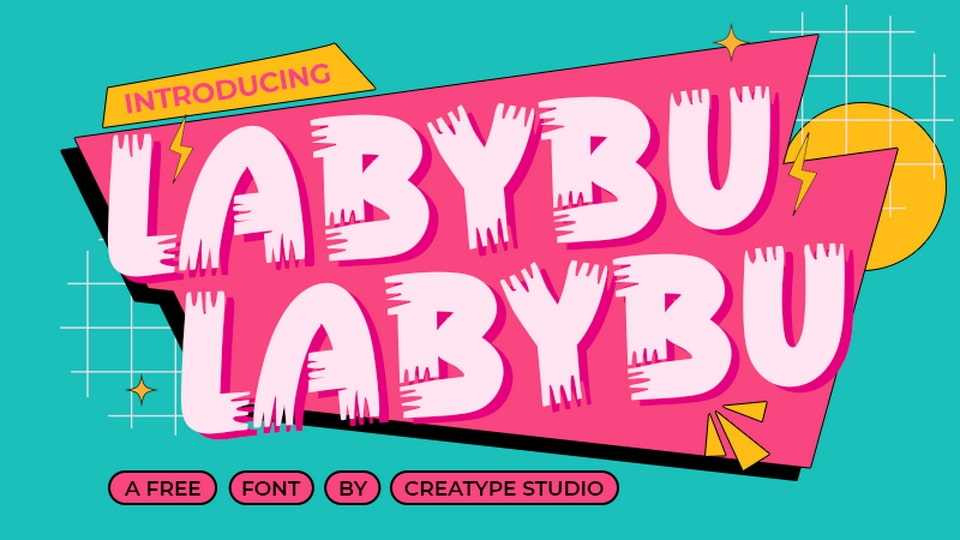
Download Labybu font, a bold, playful, and irresistibly cute hand-crafted typeface that stands out with its smooth, rounded shapes and subtly distressed stroke endings.